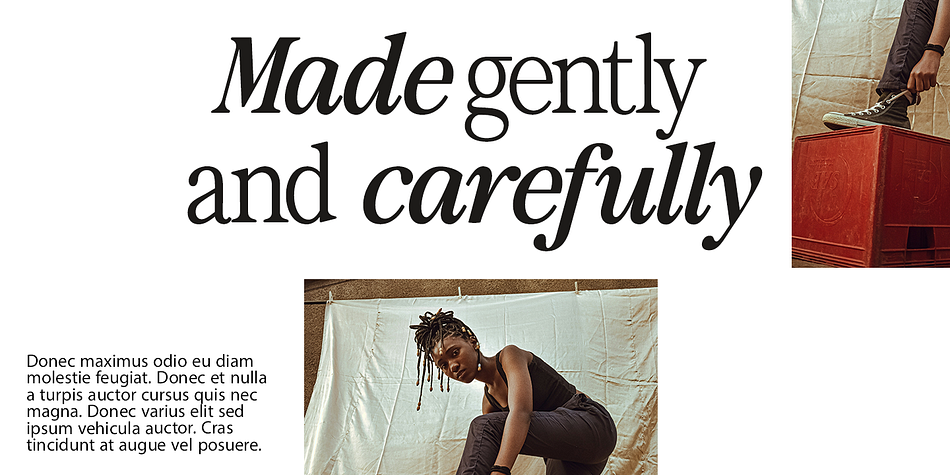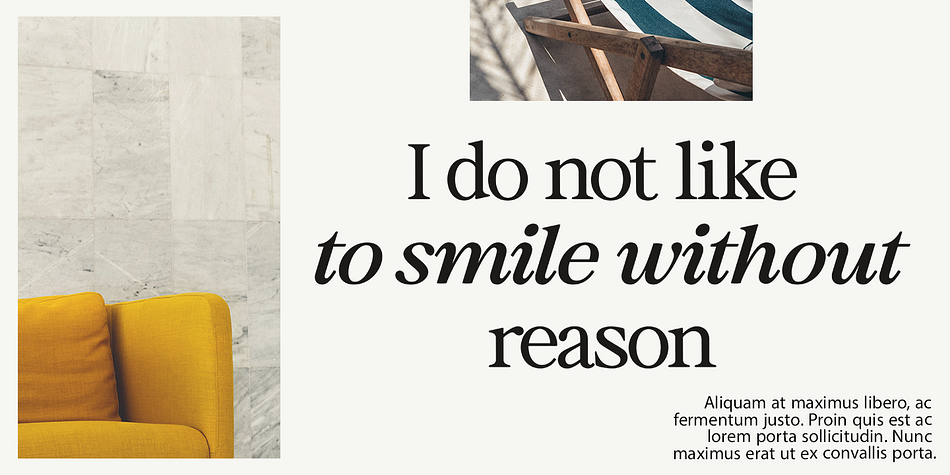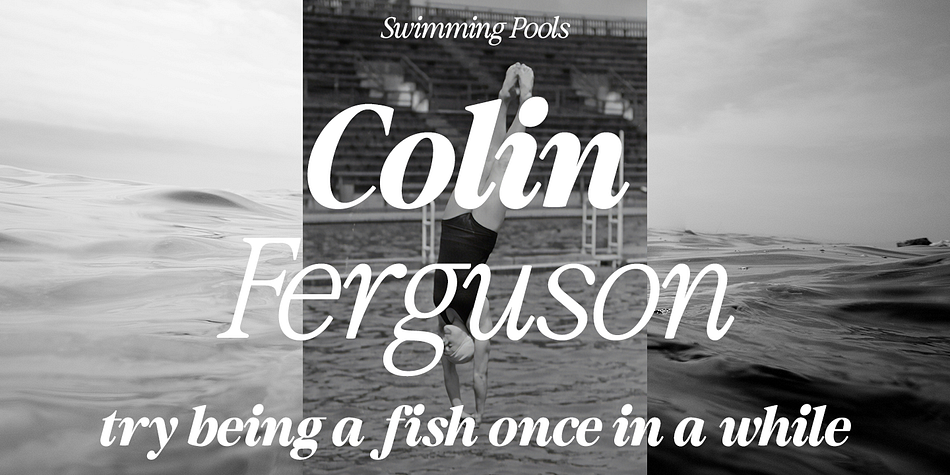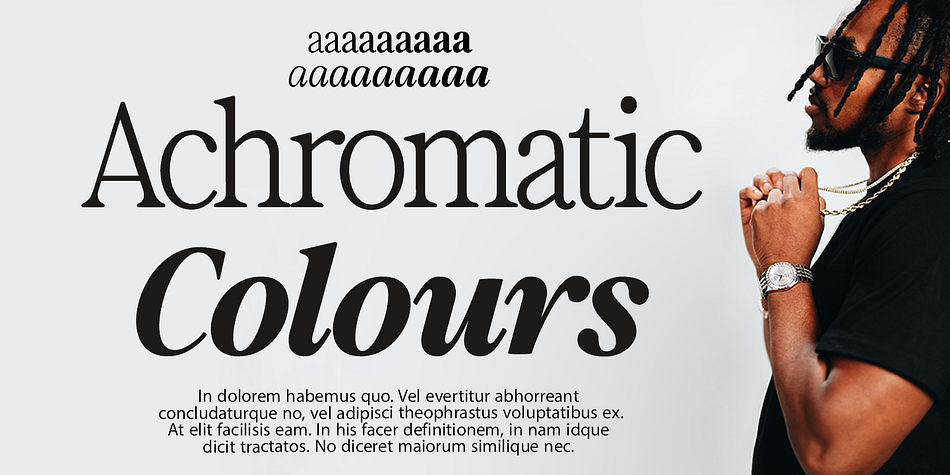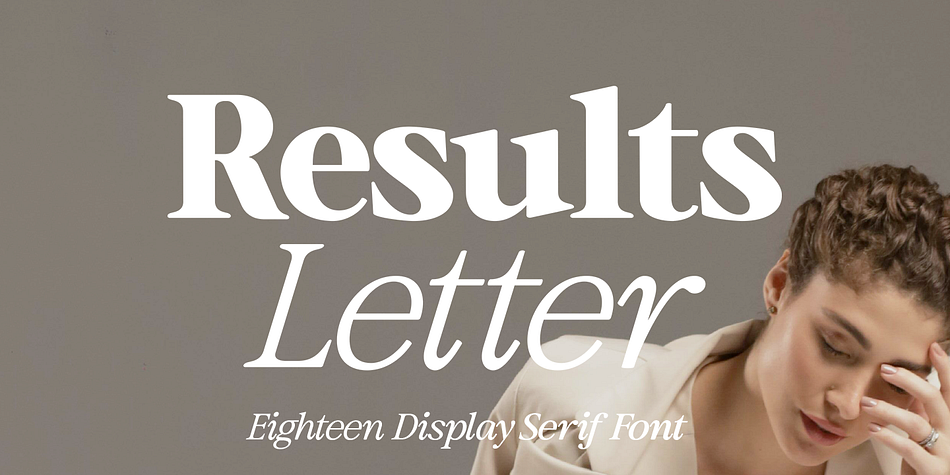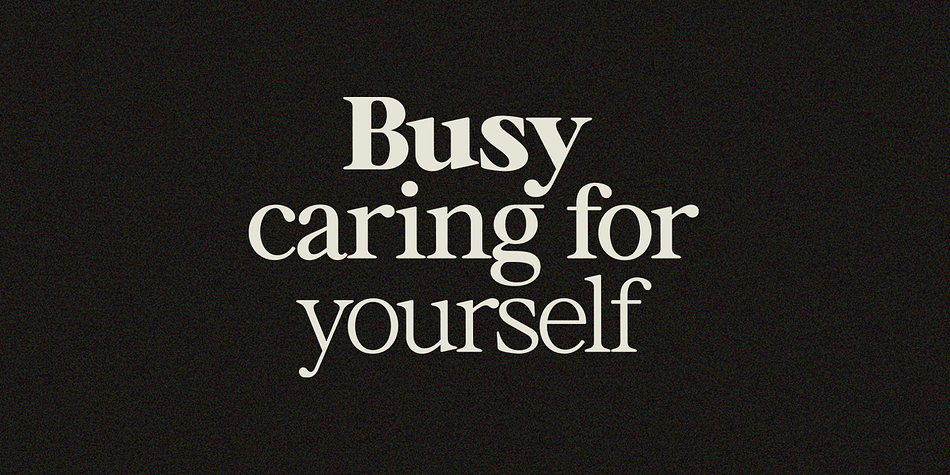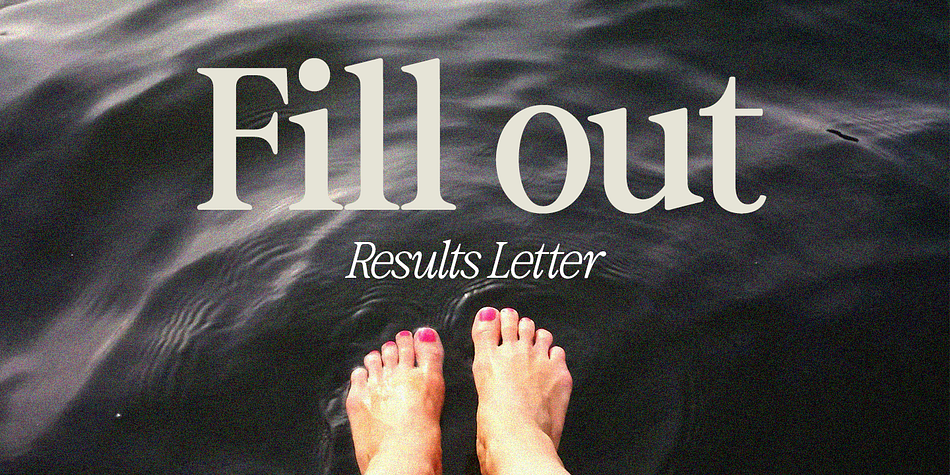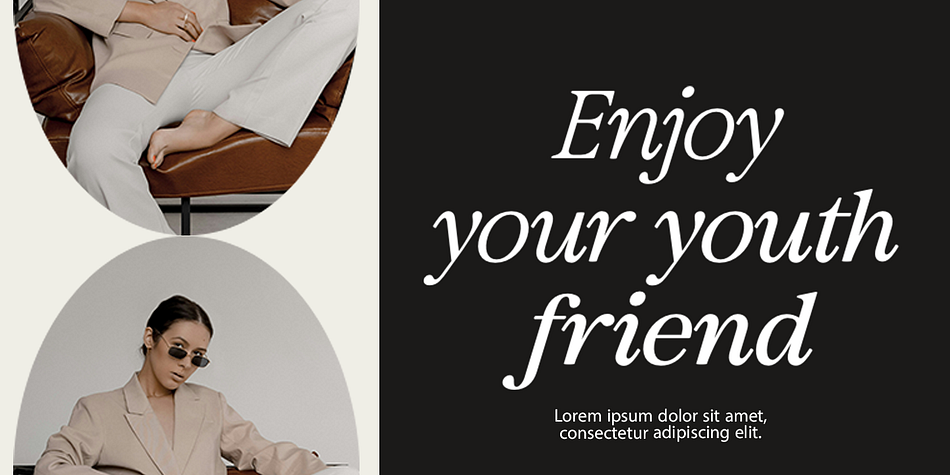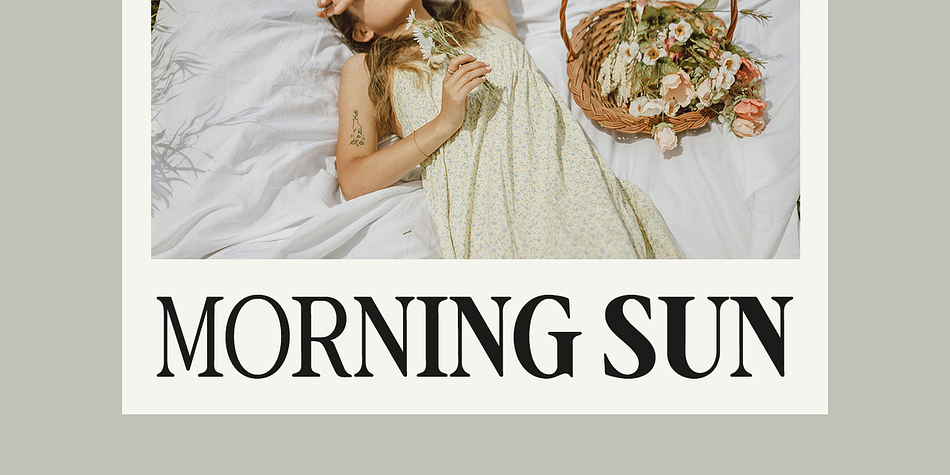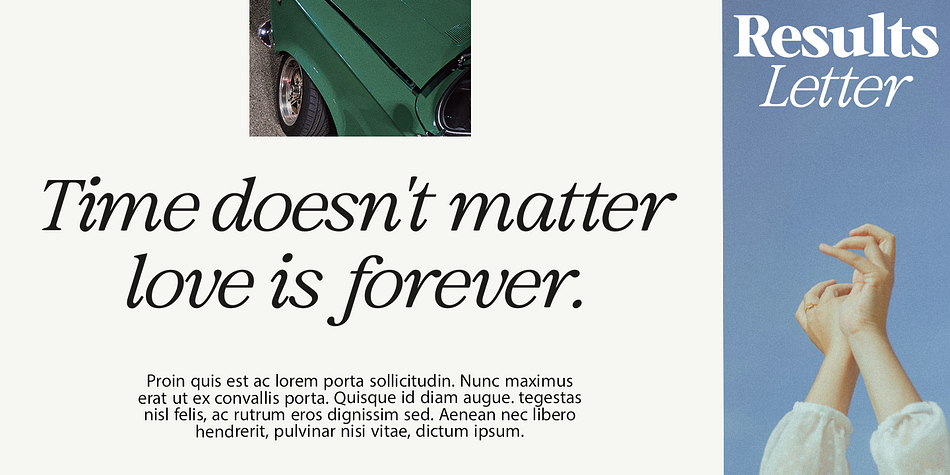
Results Letter
Results Letter is a serif font family. This typeface has eighteen styles and was published by Positive TypeFoundry.
Results Letter is a high-contrast typeface inspired by transitional and contemporary typefaces. It looks elegant and is very cool to use to support your current designs. Because of its style, this font expands its use by providing weights ranging from thin to black. Natural curves, swollen stems, and distinctive slanted stems develop as the weight of the font increases. Not only do you get the bold series, you also get more font styles to the thin style. All these font characters are very easy to combine with modern minimalist design concepts.
Results Letter excels in display settings such as headlines, titles, branding projects, Logo design, packaging, magazine titles, advertisements, short or long text.
Results Letter also comes with two versions Variable Regular and Italic to make it easier for designers to explore and perfect beautiful designs, If you are looking for something modern, nostalgic, for your next project, Results Letter is the right font for you.